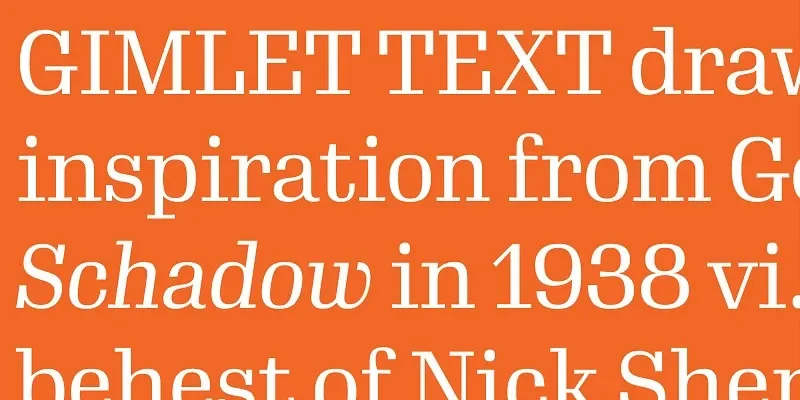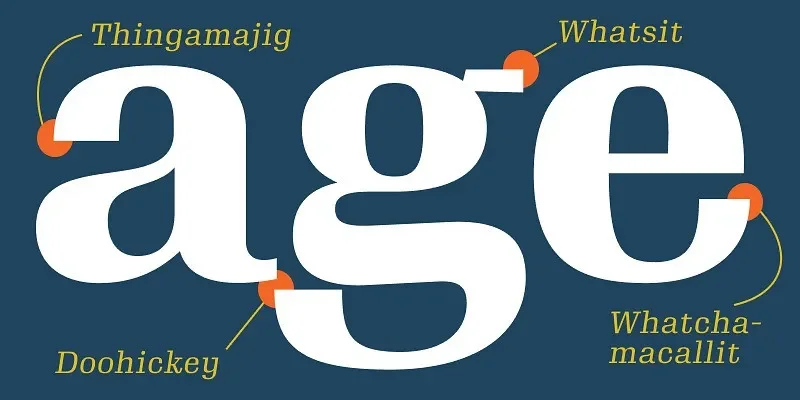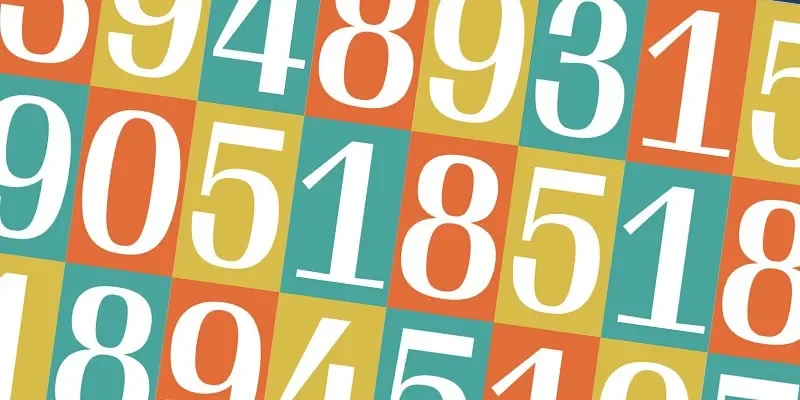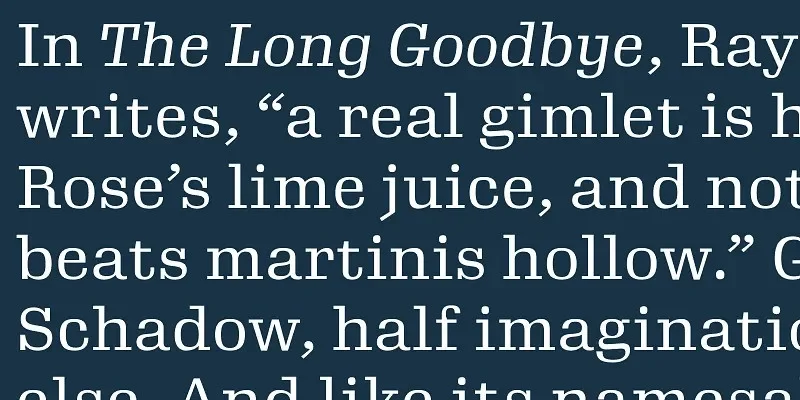
Gimlet Font Family is a sans-serif typeface built with clean geometry and controlled proportions. The letterforms use even stroke widths, open counters, and simple curves, which improves legibility on screens. Its structure supports multiple weights, allowing flexible hierarchy in layouts. The overall look remains neutral and professional, making it suitable for system-based design work.